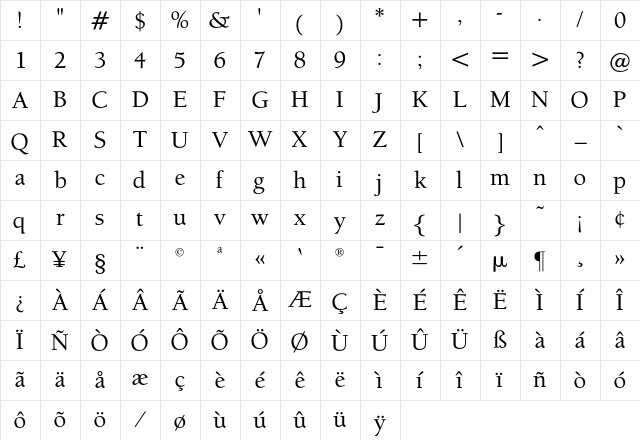
Complete BensonOldStyleOpti Medium glyph index. Displaying only characters natively supported by BensonOldStyleOpti Medium font.
BensonOldStyleOpti carries the refined structure of traditional serif typography, with bracketed terminals and considered proportions that communicate credibility and craft.